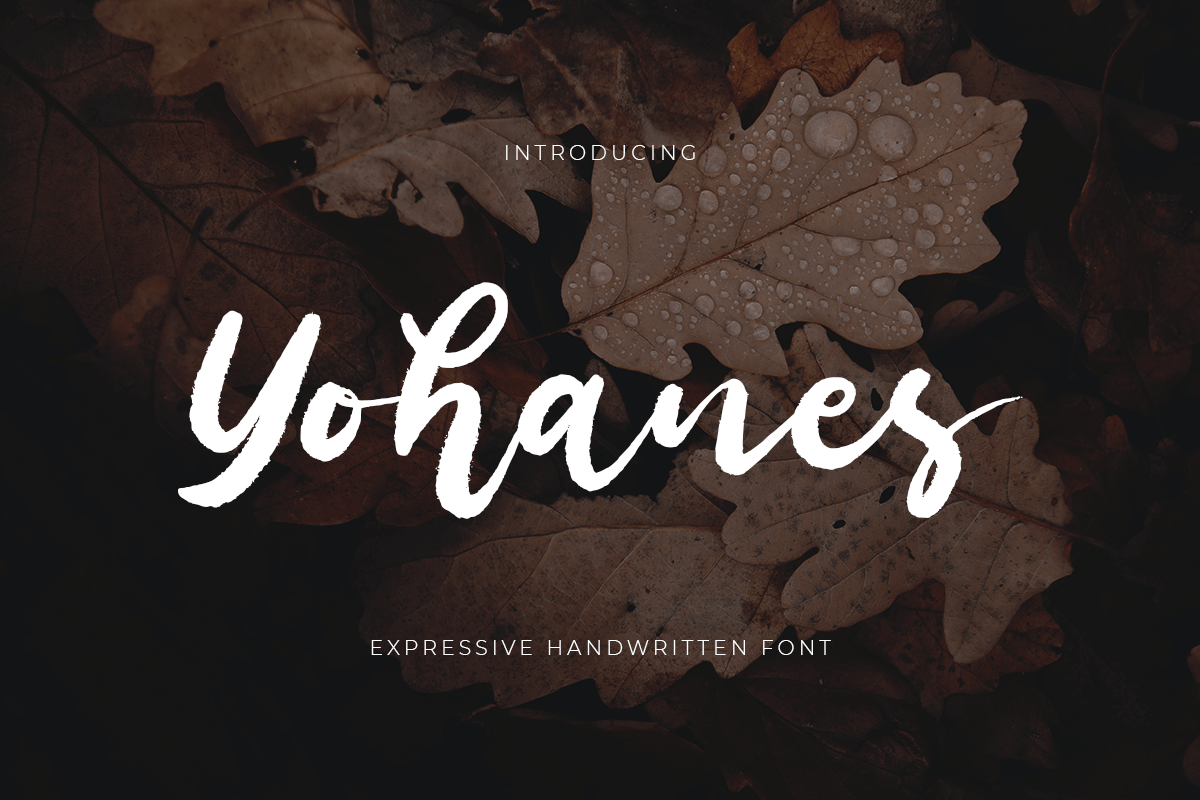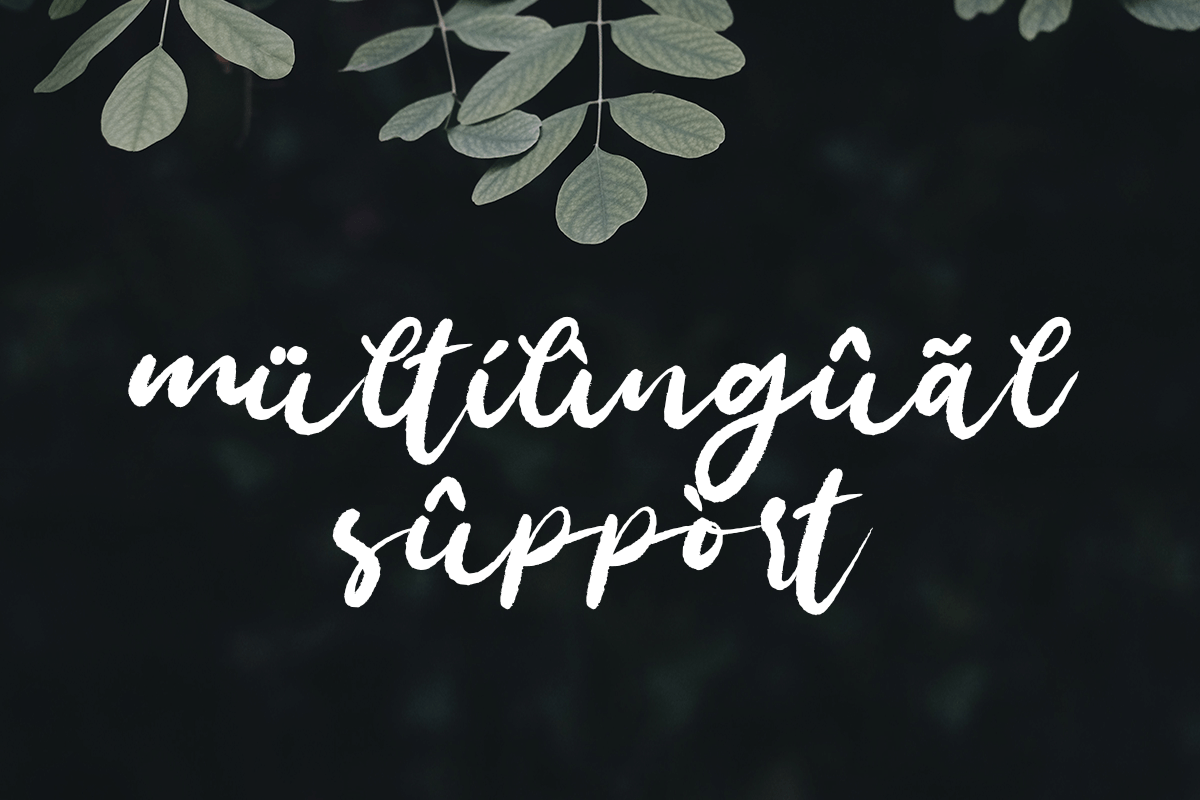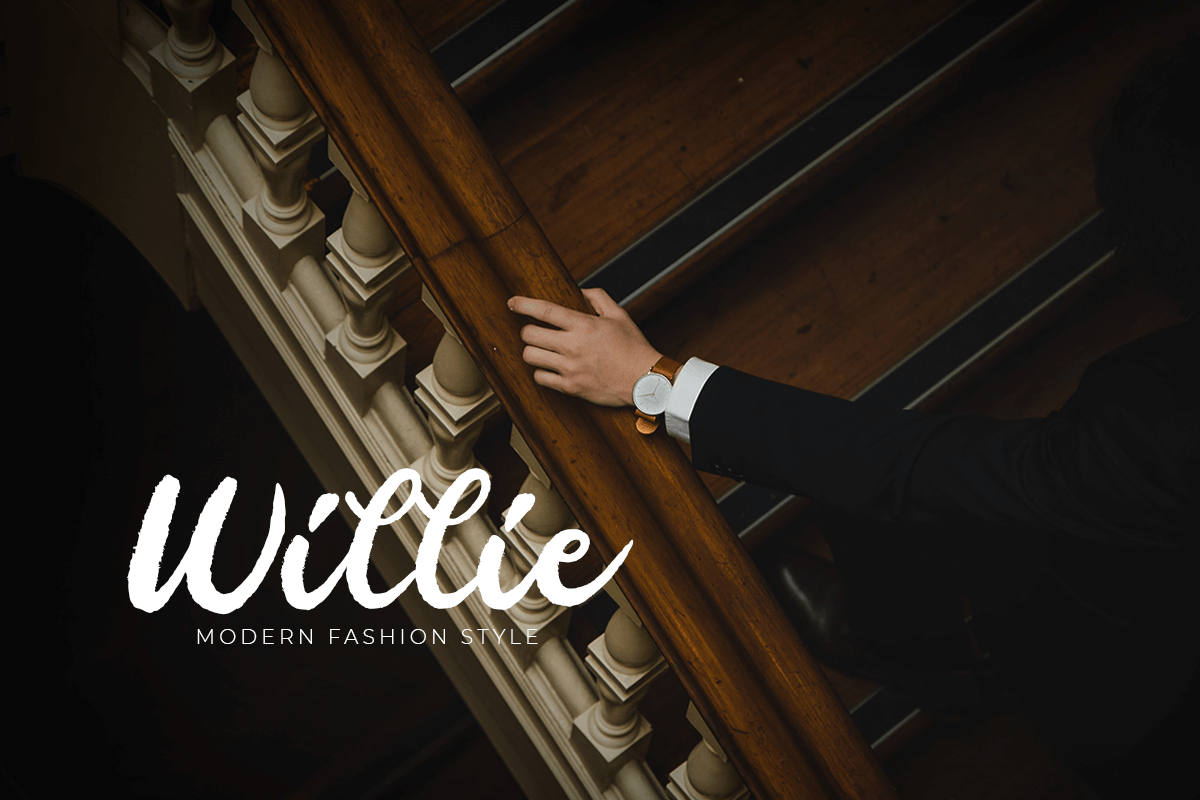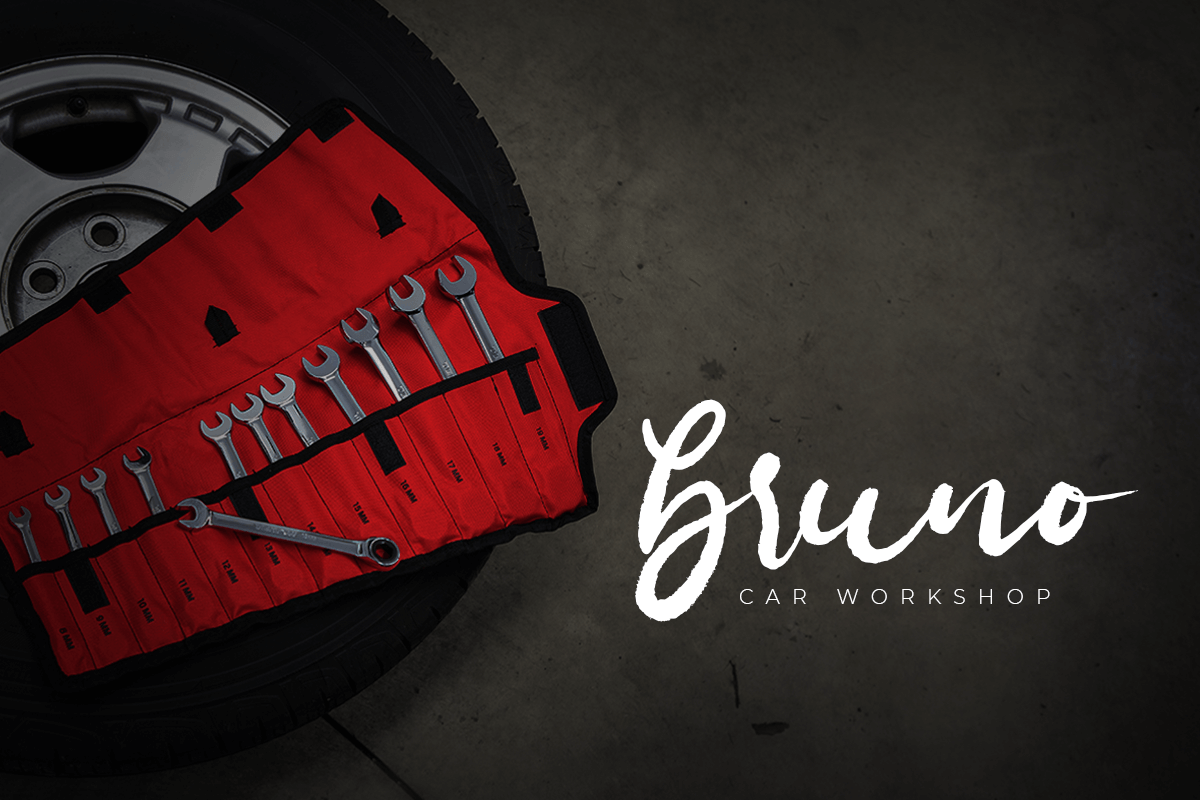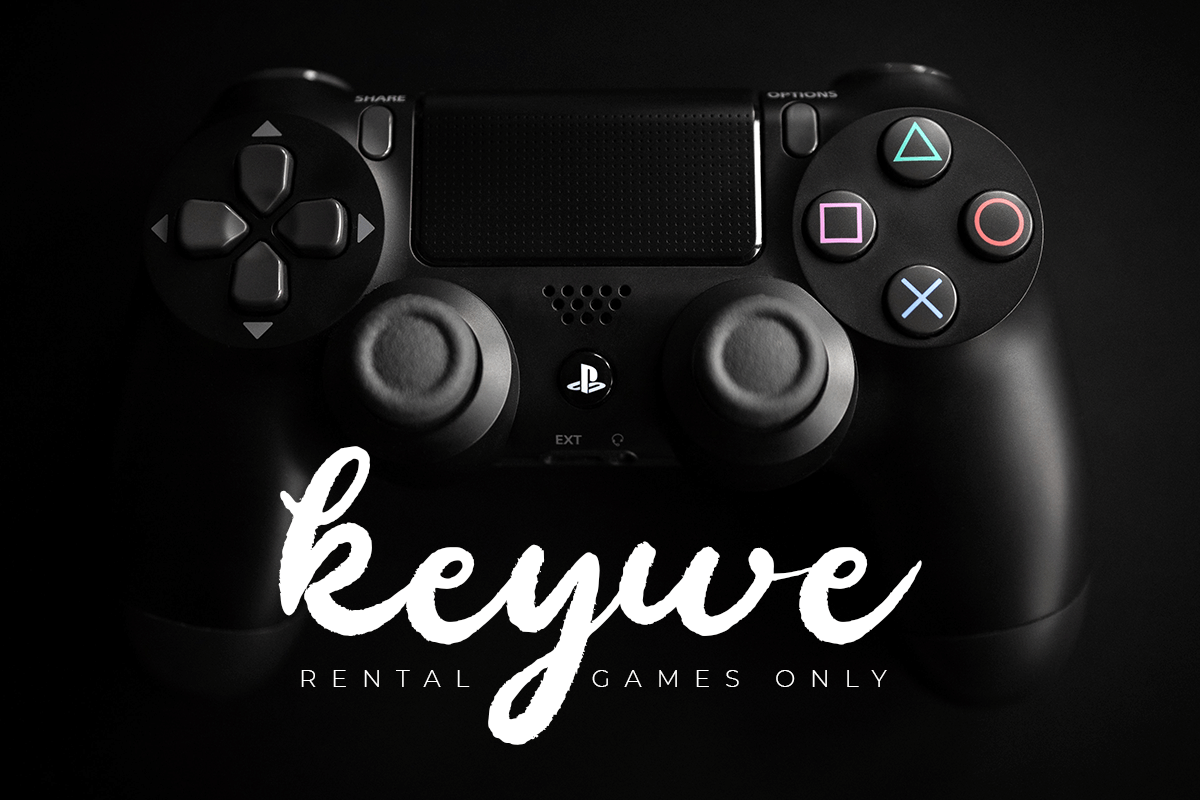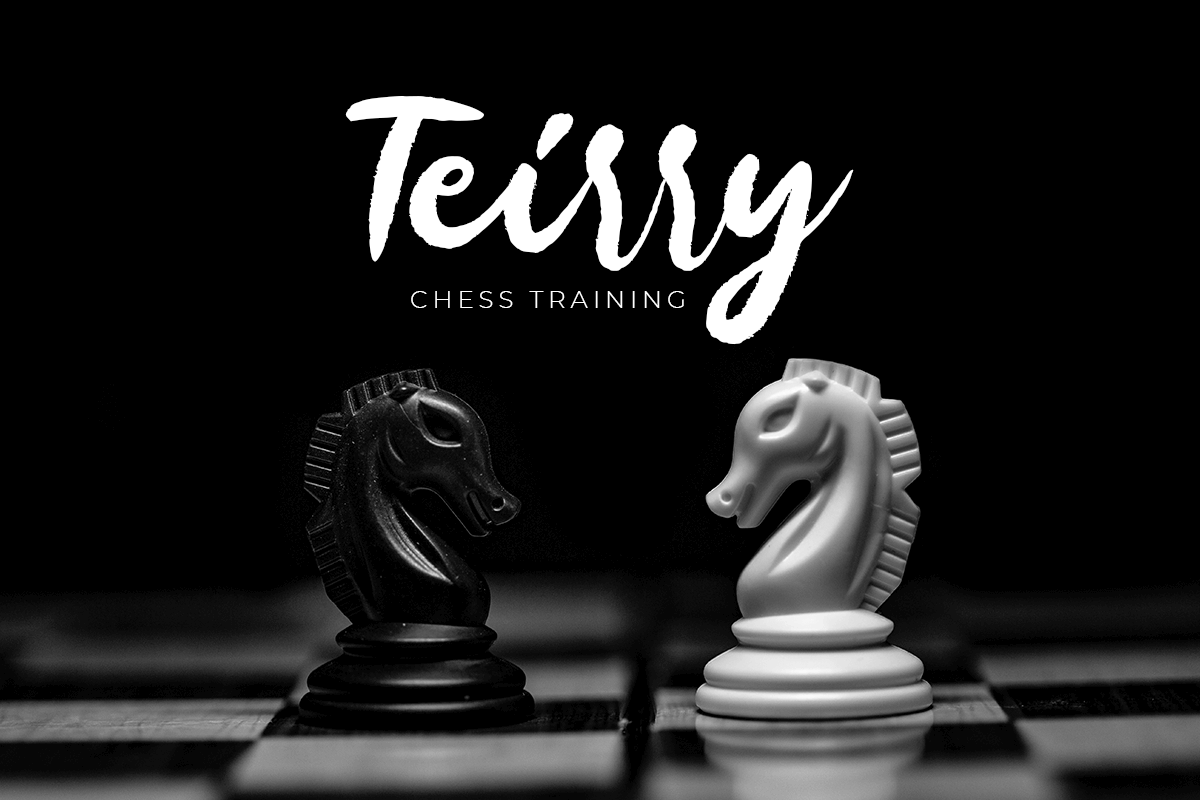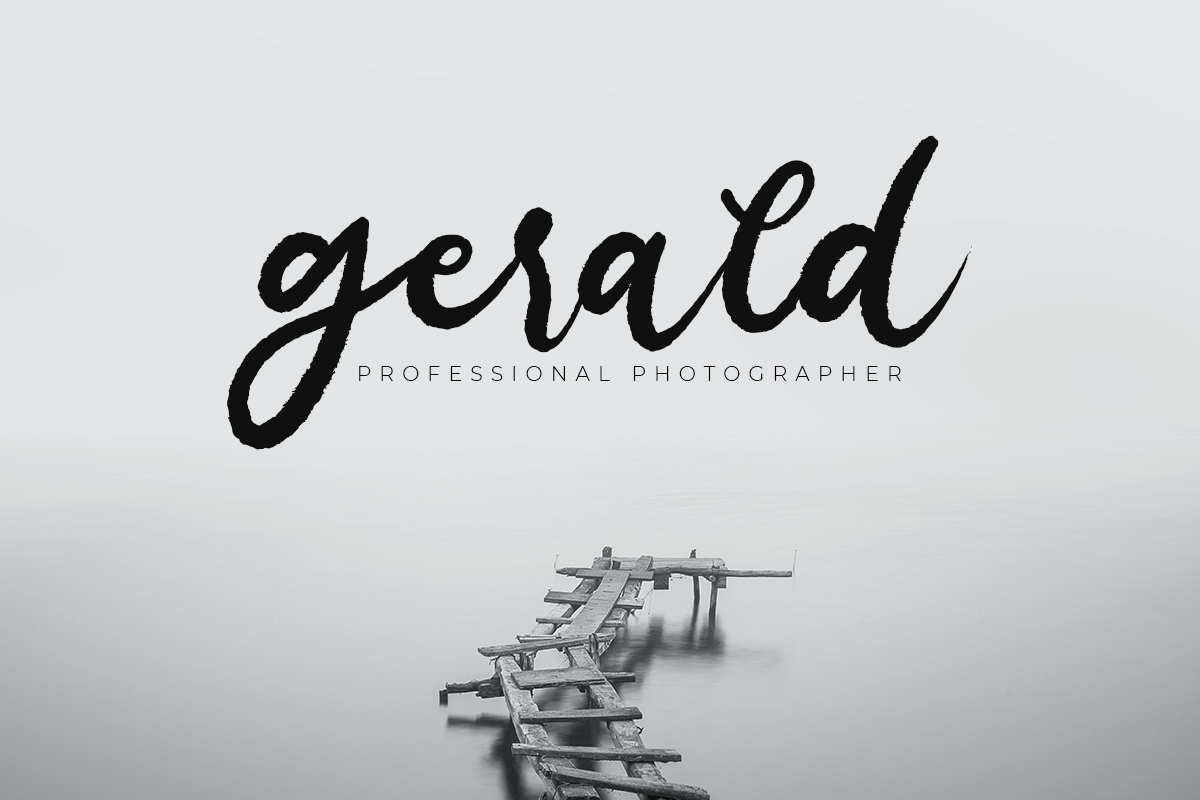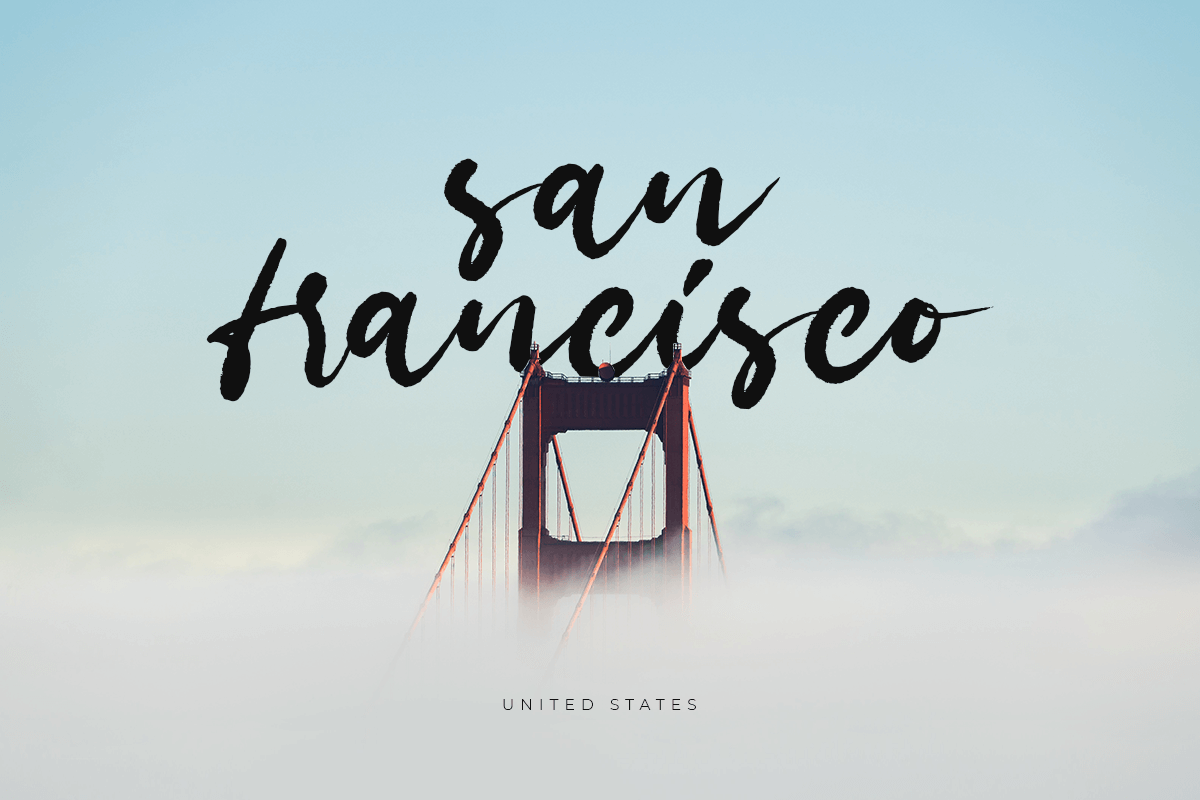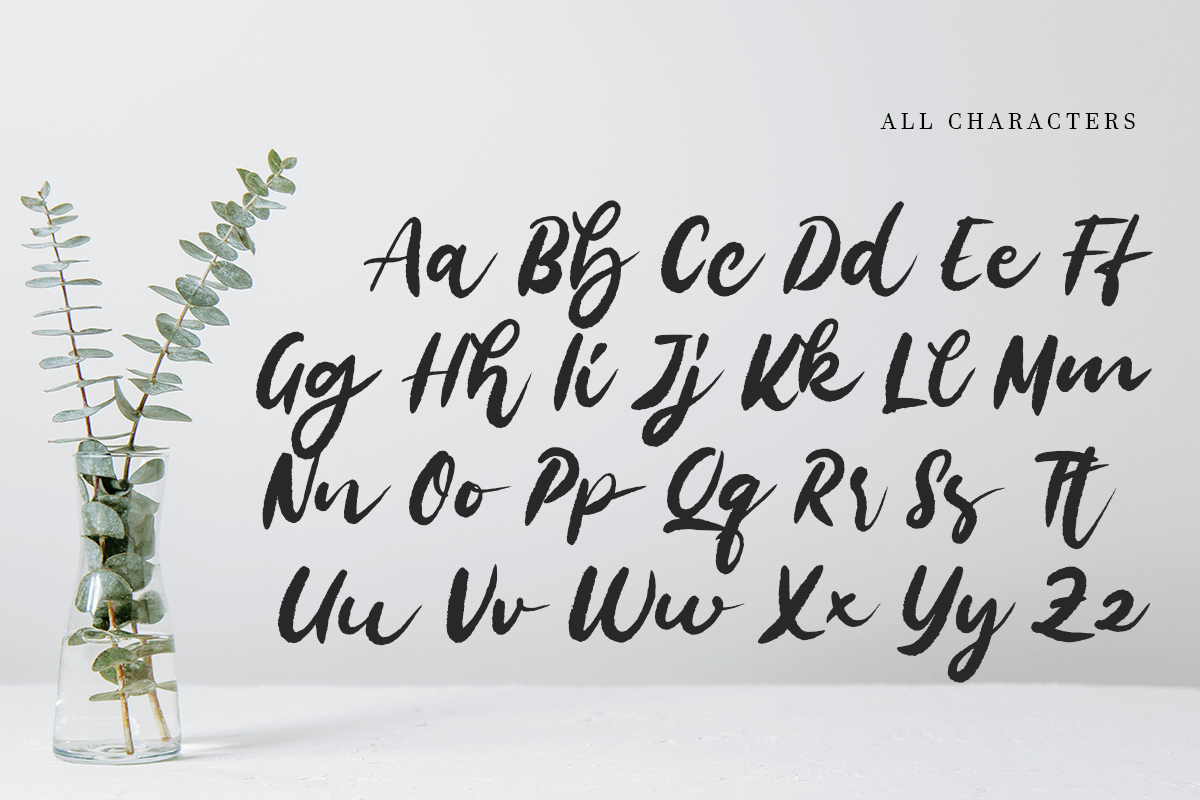
Yohanes
-Expressive Handwritten Font
Yohanes
Yohanes A Modern Expressive Handwritten font with nice and modern style and so beautiful. This font specially crafted for your project design or professional logo, modern for any designs such as product, merchandise, and so many more with easy to use but unique results are so professional.
Enjoy to Design any your needs with cute, cheerful, and charming feel.